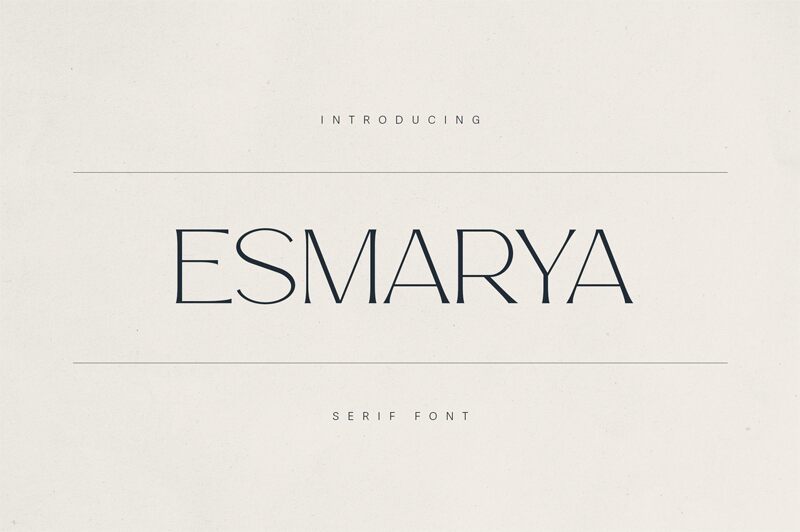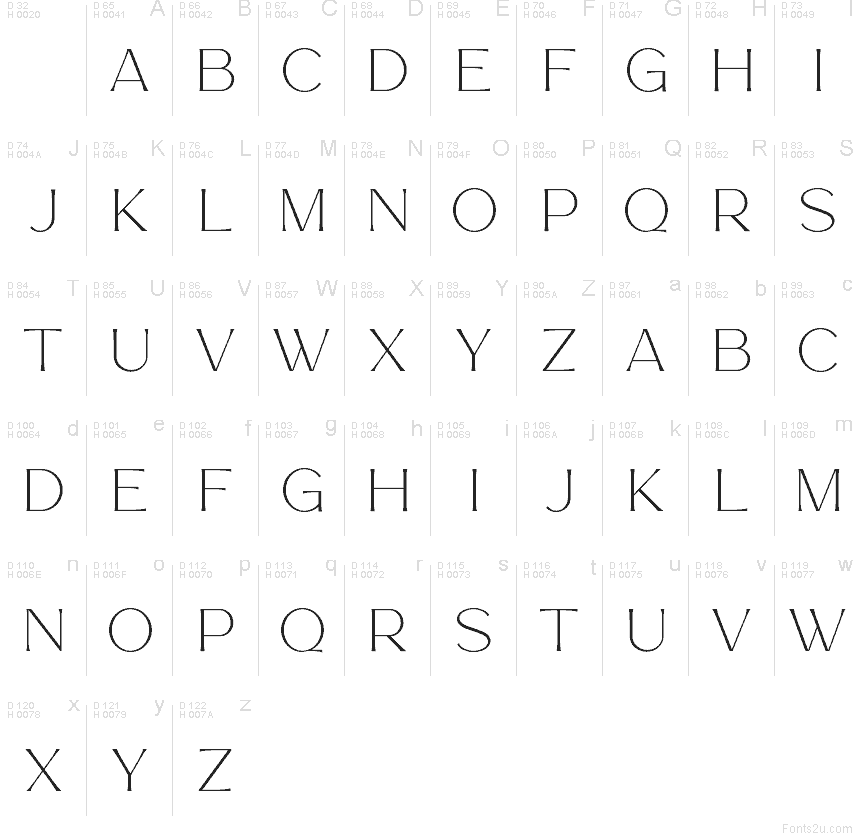
Esmarya font by VPcreativeshop is a free elegant serif typeface that brings a runway-level sense of refinement to your layouts. Its ultra-fine strokes, tall proportions, and generous spacing give every word a sleek, glassy presence, like lettering etched into metal or perfume bottles. The letters feel weightless yet precise, making Esmarya a natural choice when you want luxury without heaviness.
Using Esmarya in large sizes lets its slender shapes and airy rhythm really shine on magazine covers, fashion lookbooks, beauty packaging, high-end logos, posters, and social media graphics. This free font thrives in clean, minimal layouts where it can breathe. Pair Esmarya with a simple geometric sans for body copy, keeping the serif reserved for headlines, monograms, and wordmarks that need to whisper elegance rather than shout.